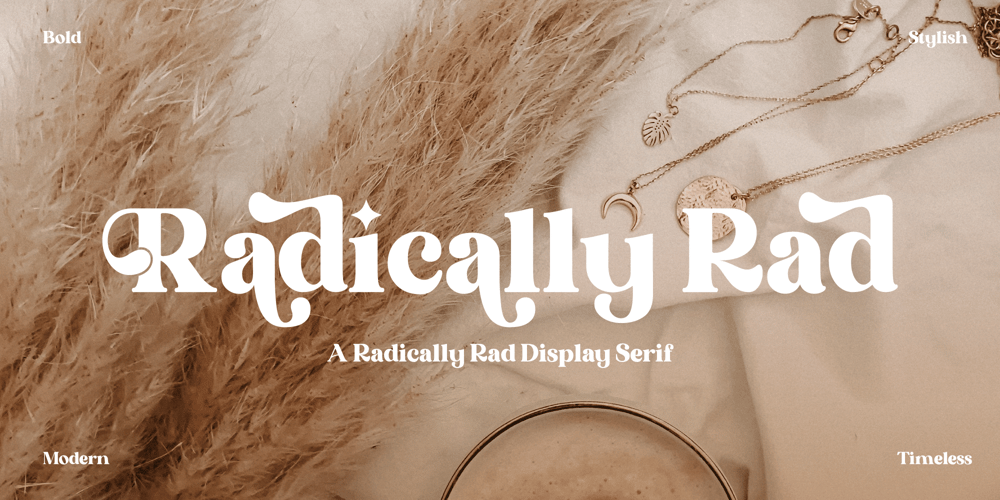
Radically Rad
Radically Rad font
Radically Rad Font Family was designed by Zak M and published by Prestige Artsy Studio. Radically Rad contains 1 styles and family package options. Introducing Radically Rad Display Serif, a true masterpiece of typography that combines boldness, elegance, and timeless beauty. Radically Rad is meticulously crafted to captivate and enchant with its abundance of stylistic alternates and elegant ligatures seeking a typeface that makes a bold statement, featuring a strong, thick letterforms that command attention. Radically Rad comes in with an extensive collection of stylistic alternates, offering a myriad of design possibilities.